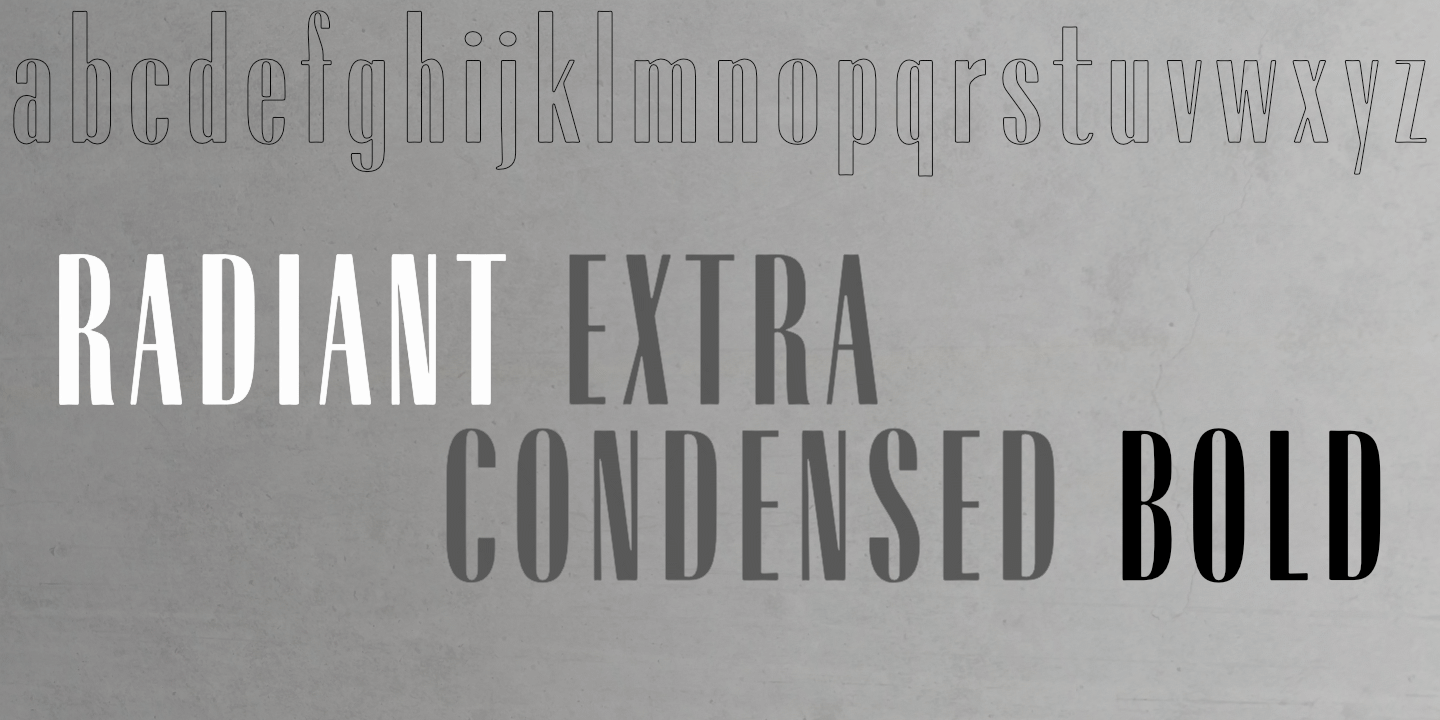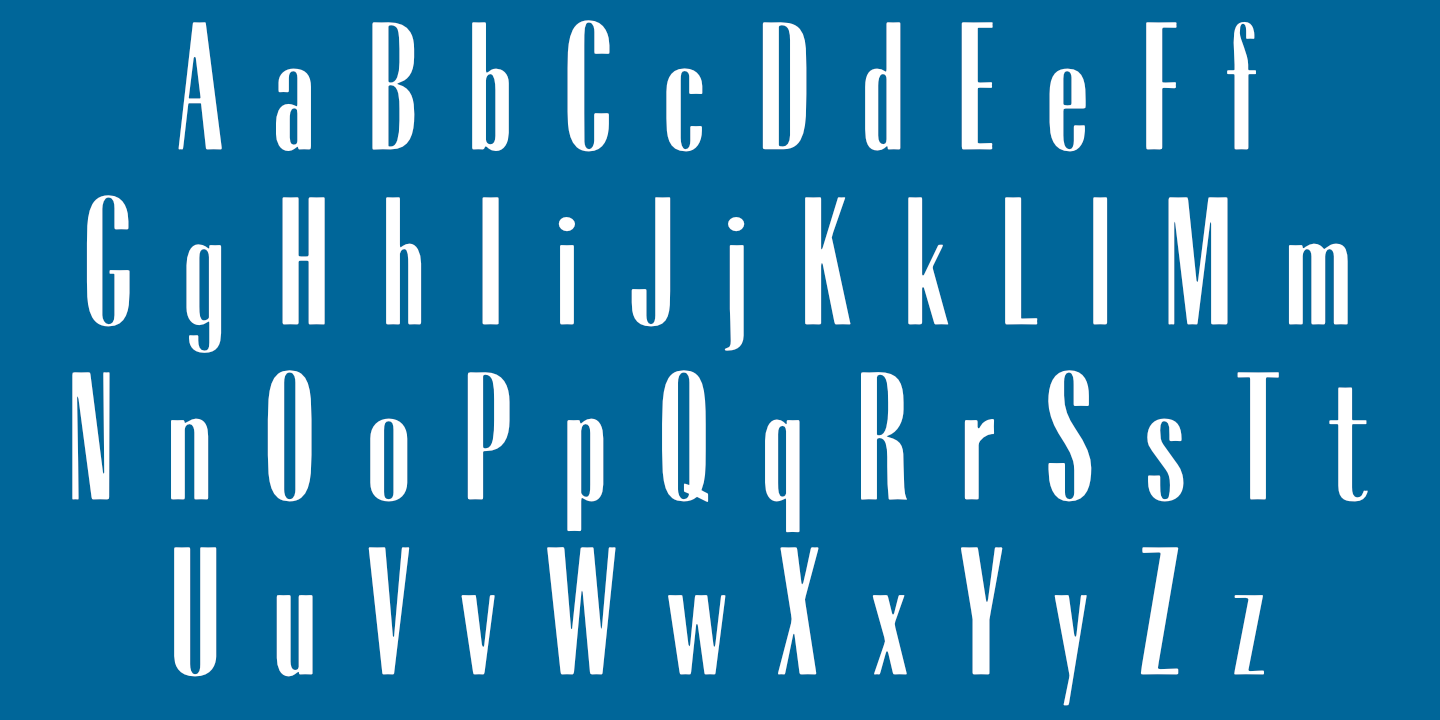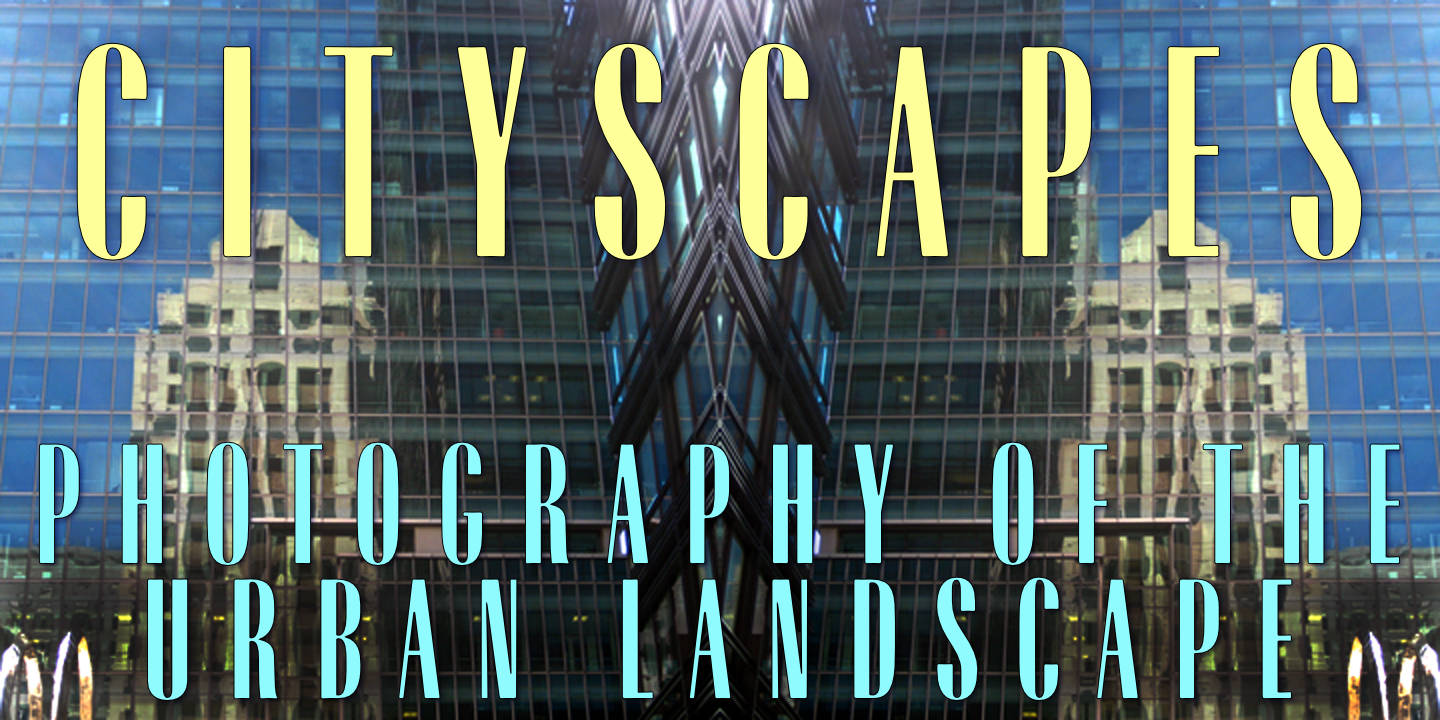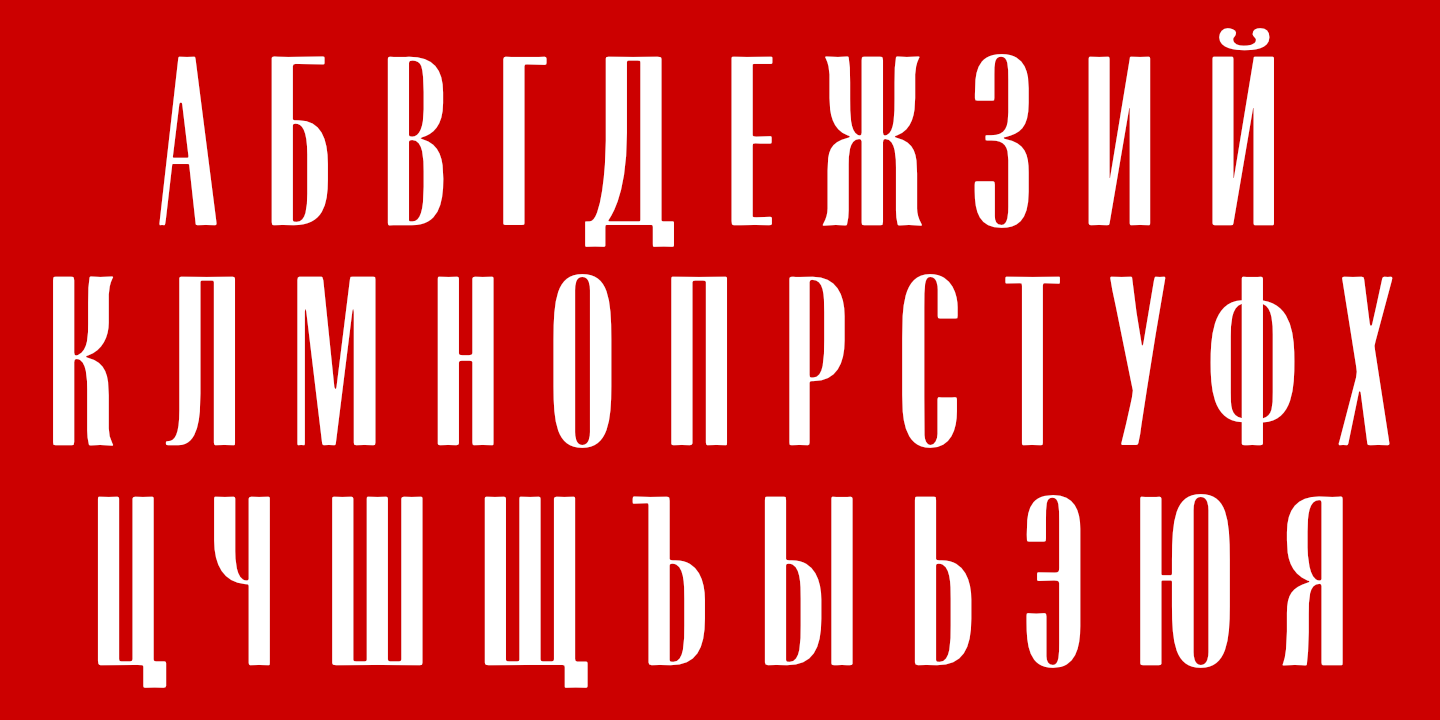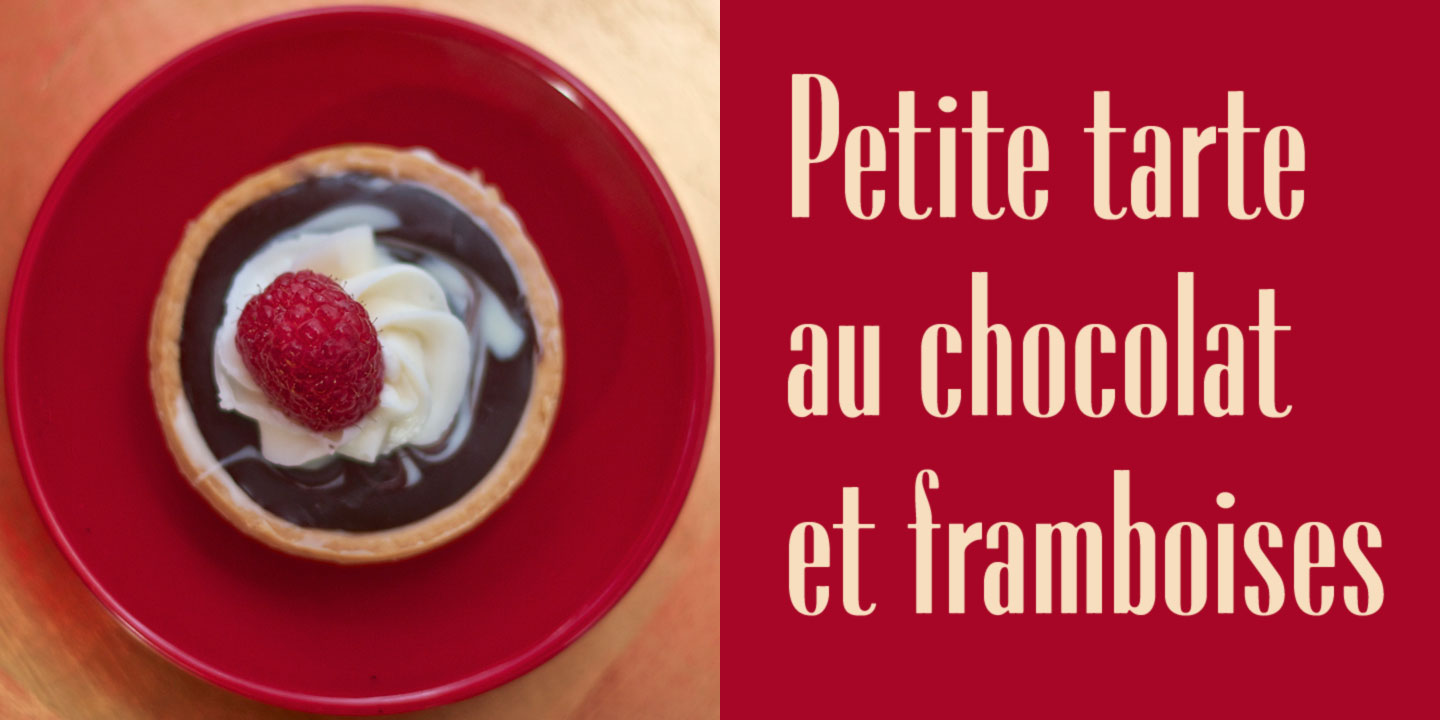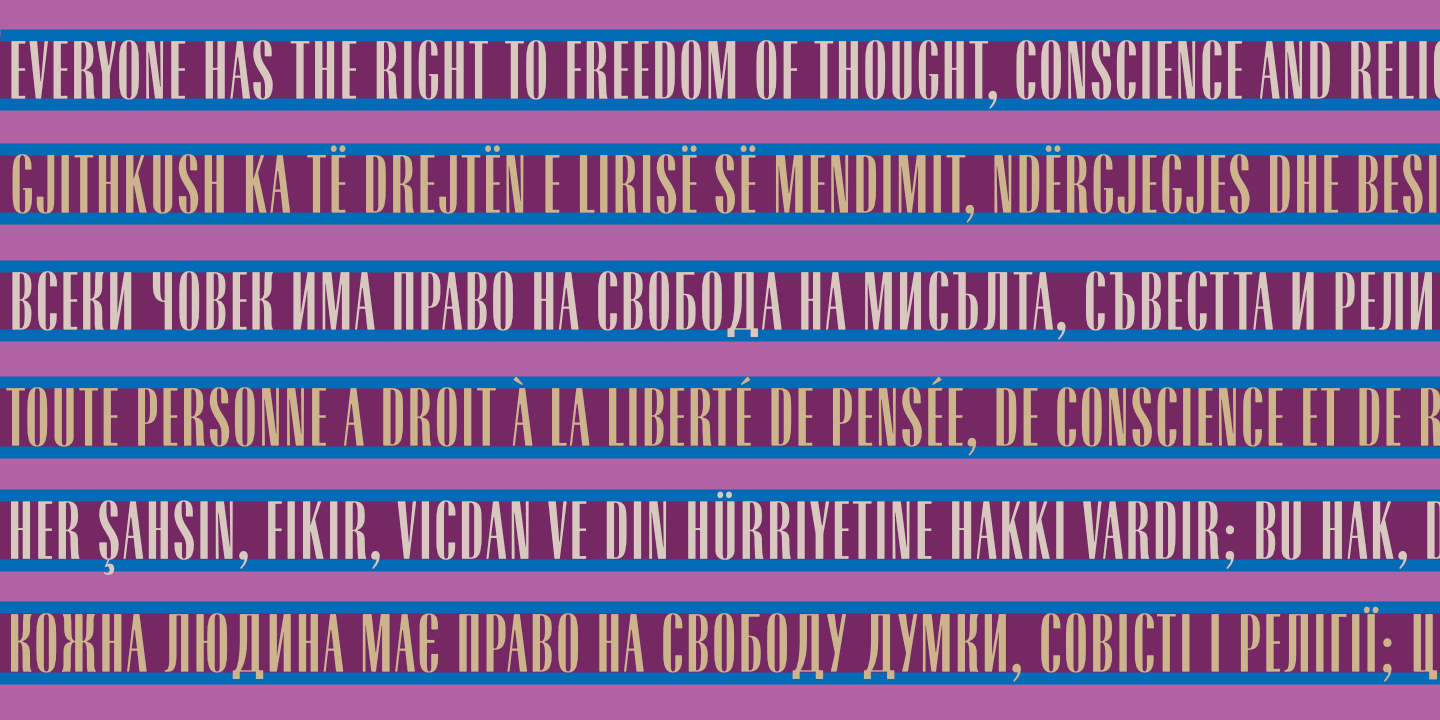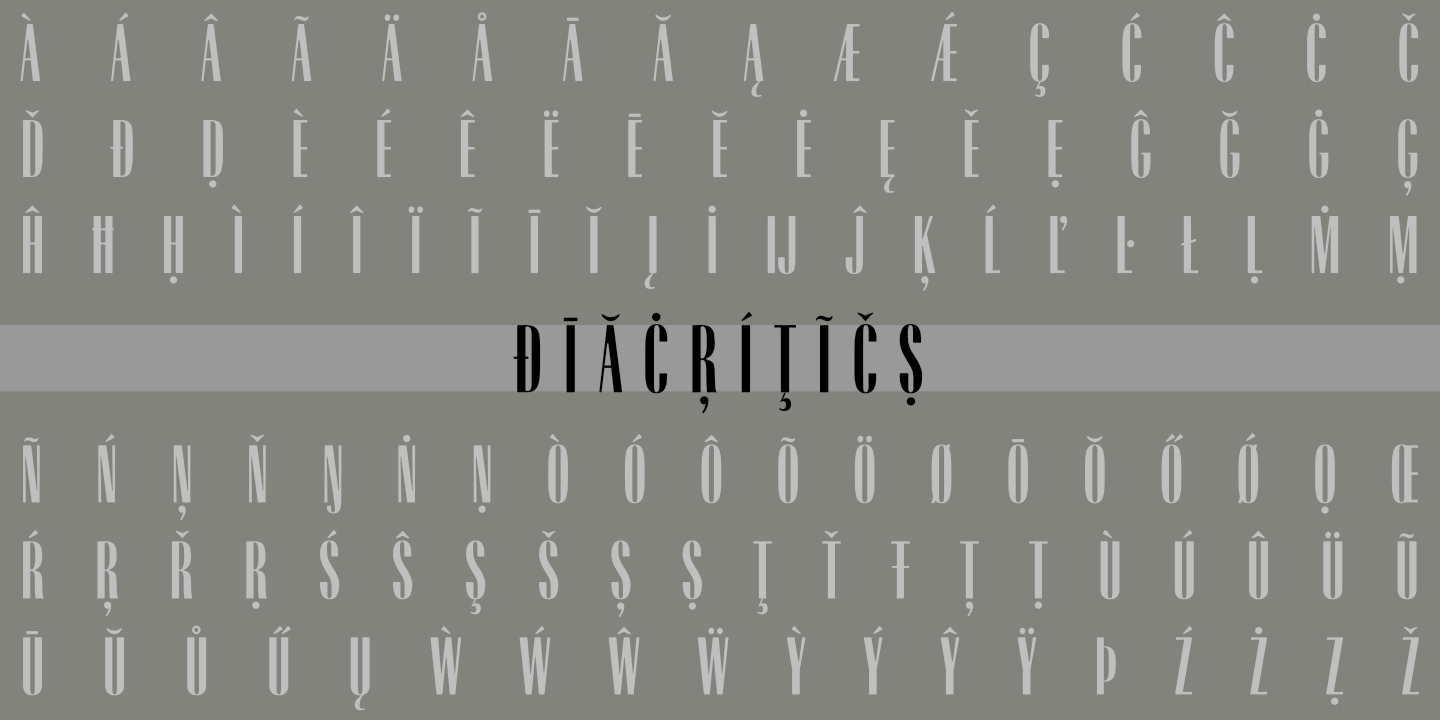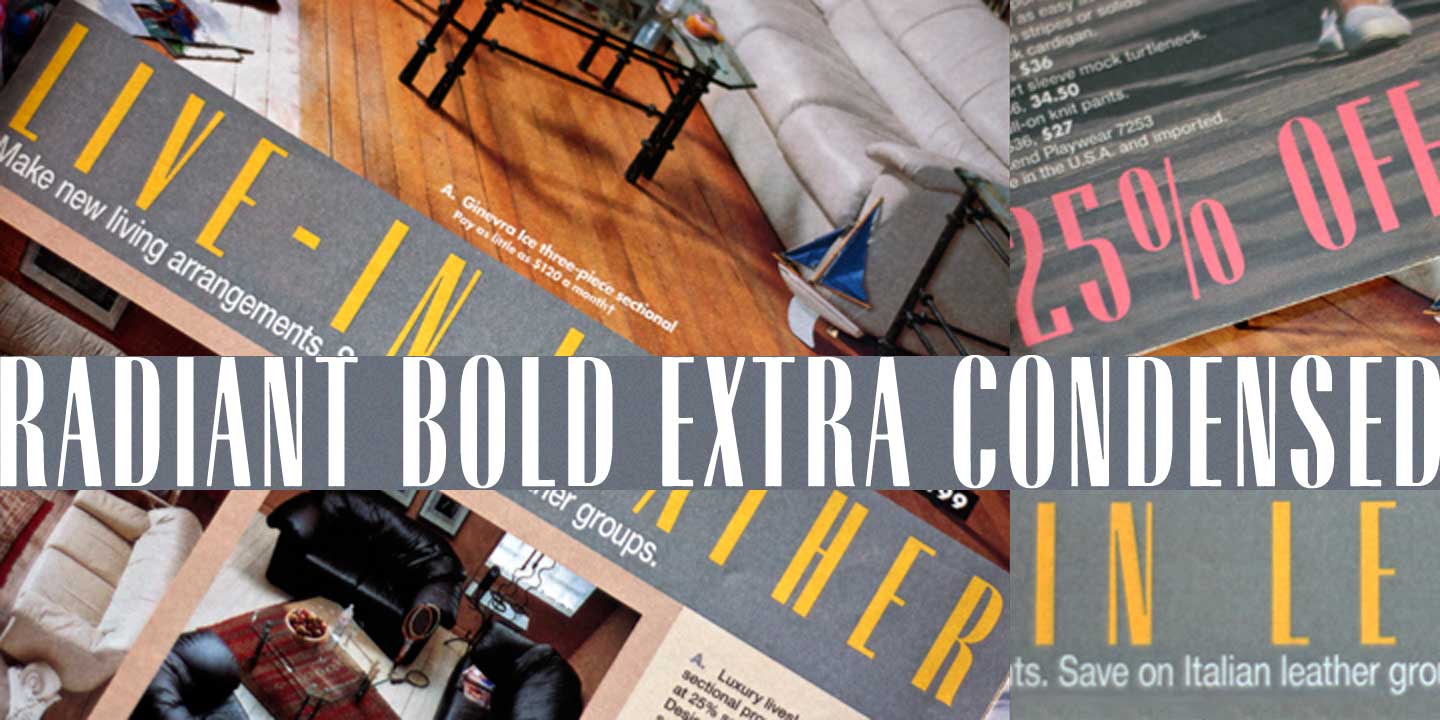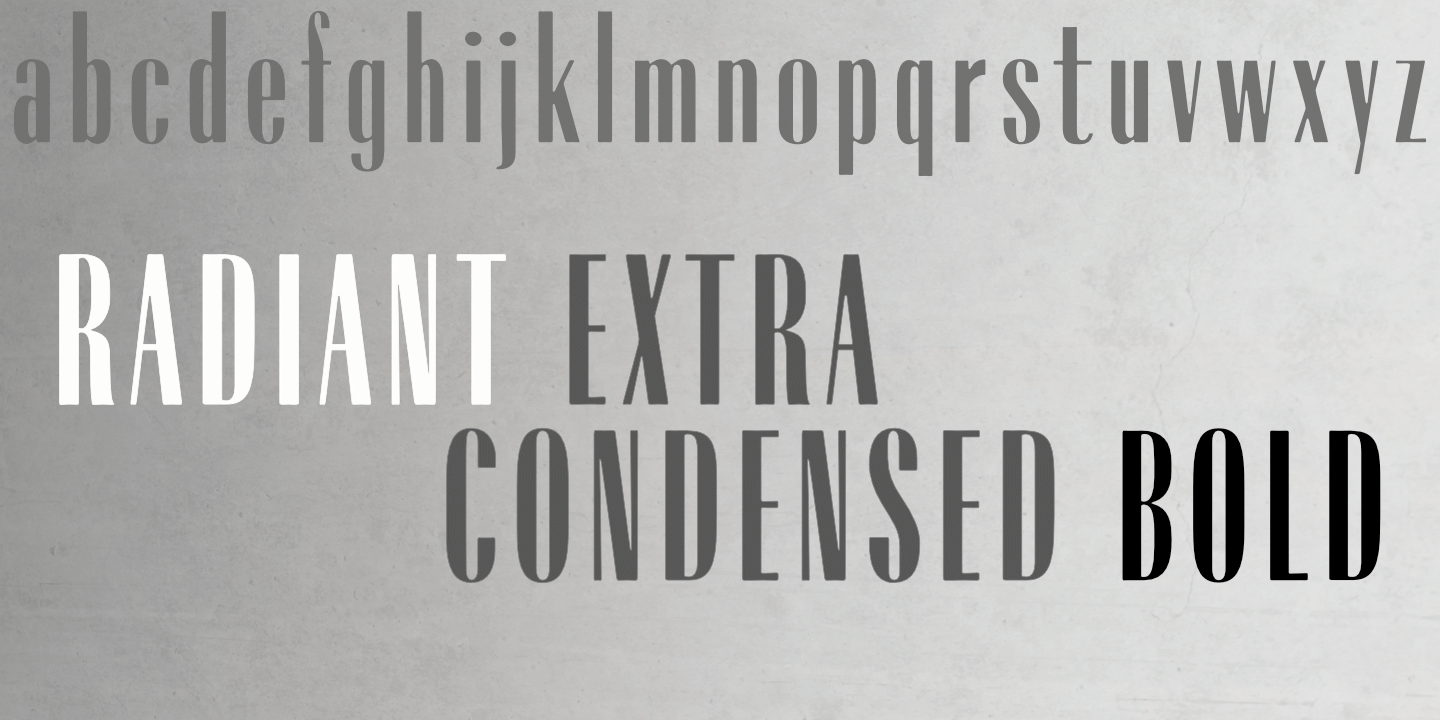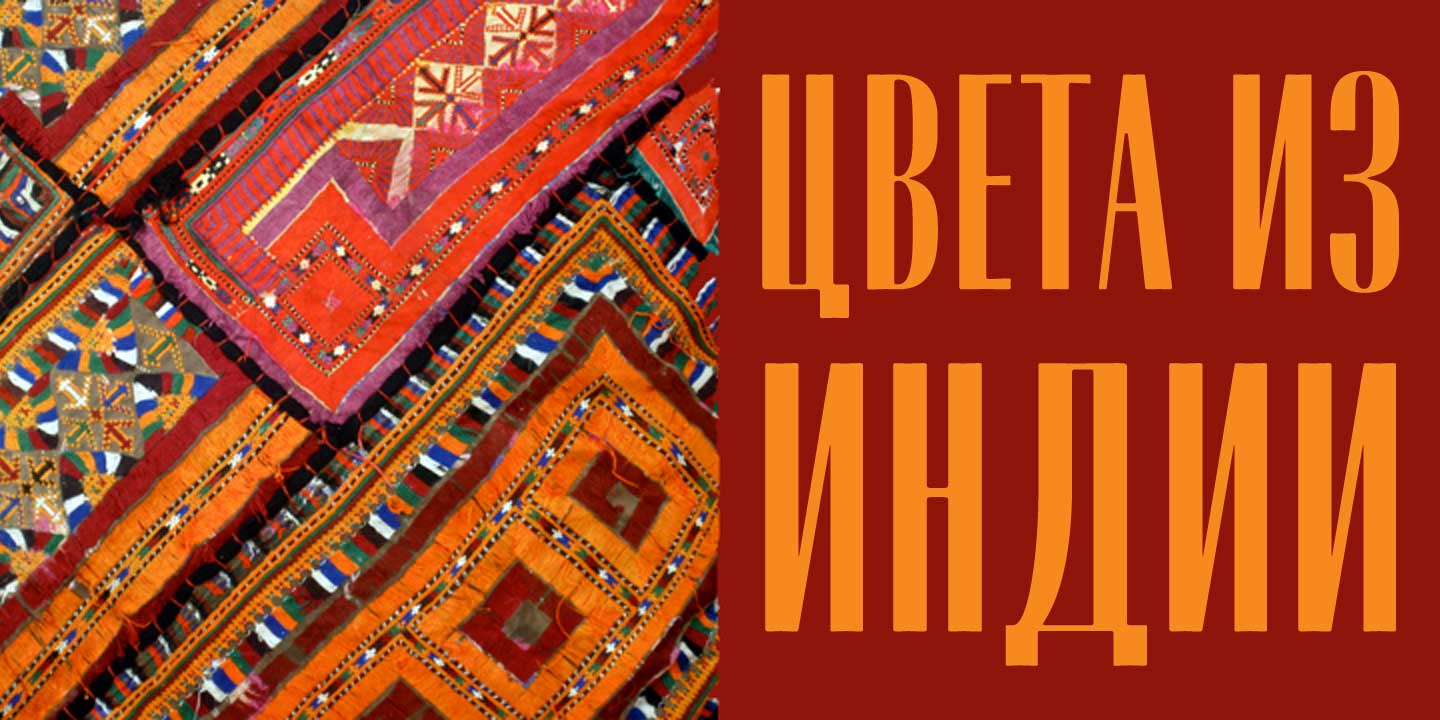
Radiant CT Extra Condensed Bold: Basic Latin alphabet. Supports most European languages. See Glyphs for details.
Radiant CT Extra Condensed Bold supports most languages that use the Cyrillic alphabet. Uppercase only.
Radiant Extra Condensed Bold was the first font to which I added the Cyrillic alphabet (for Ukrainian, etc).
Radiant CT Extra Condensed Bold: Numerals, basic punctuation, currency symbols, and a sampling of ornaments.
Radiant CT Extra Condensed Bold supports most European languages (uppercase only for Cyrillic).
Radiant CT Extra Condensed Bold as used for department store ads (for which it was commissioned).